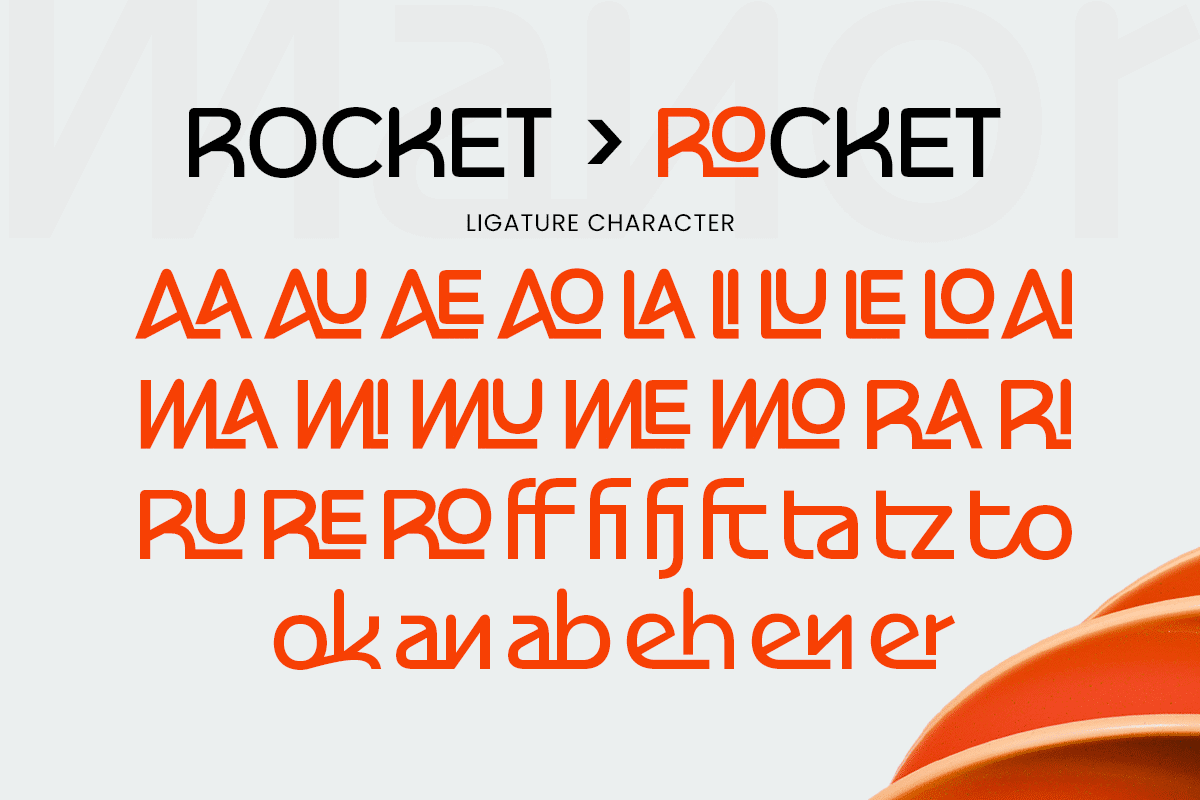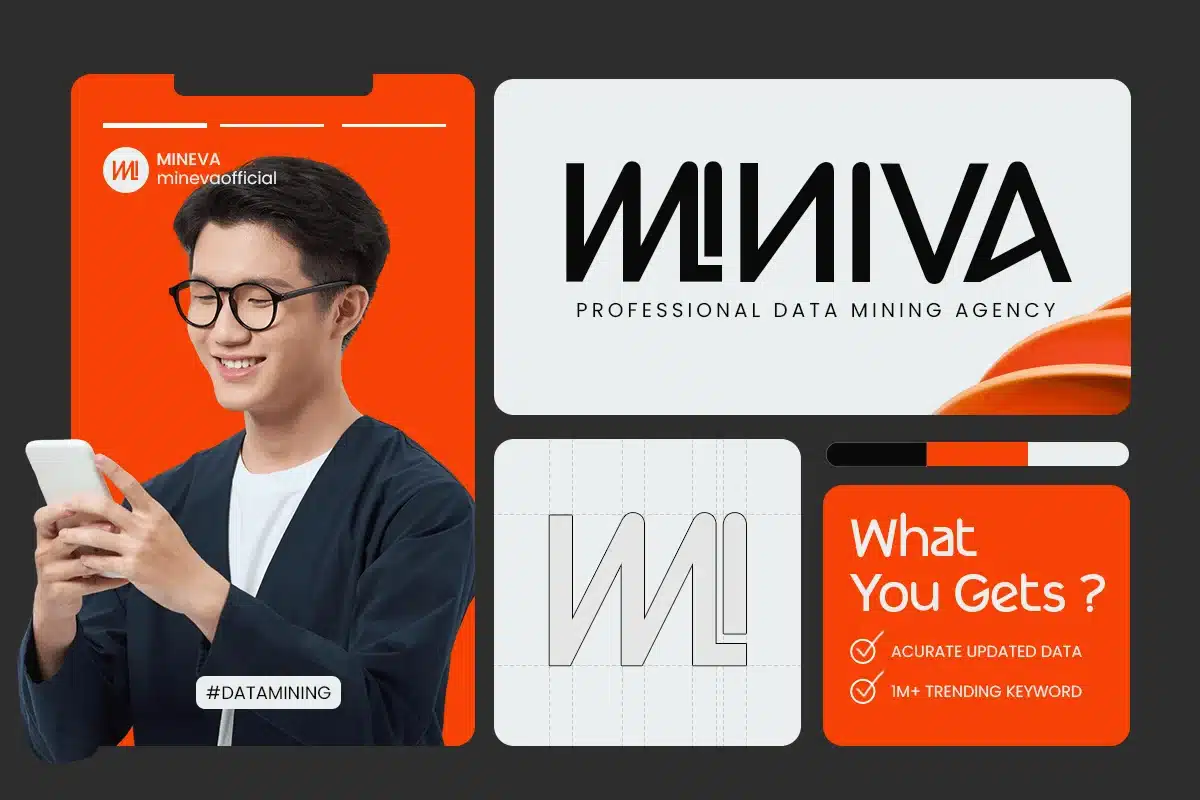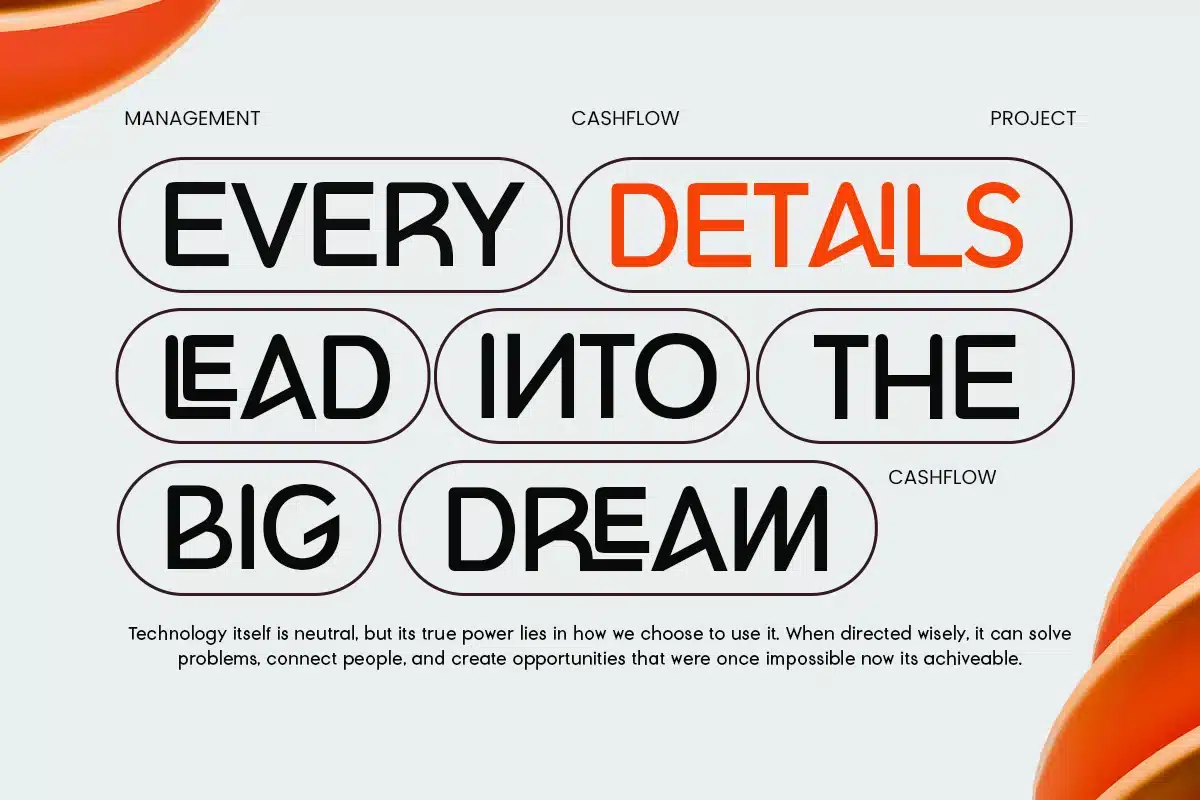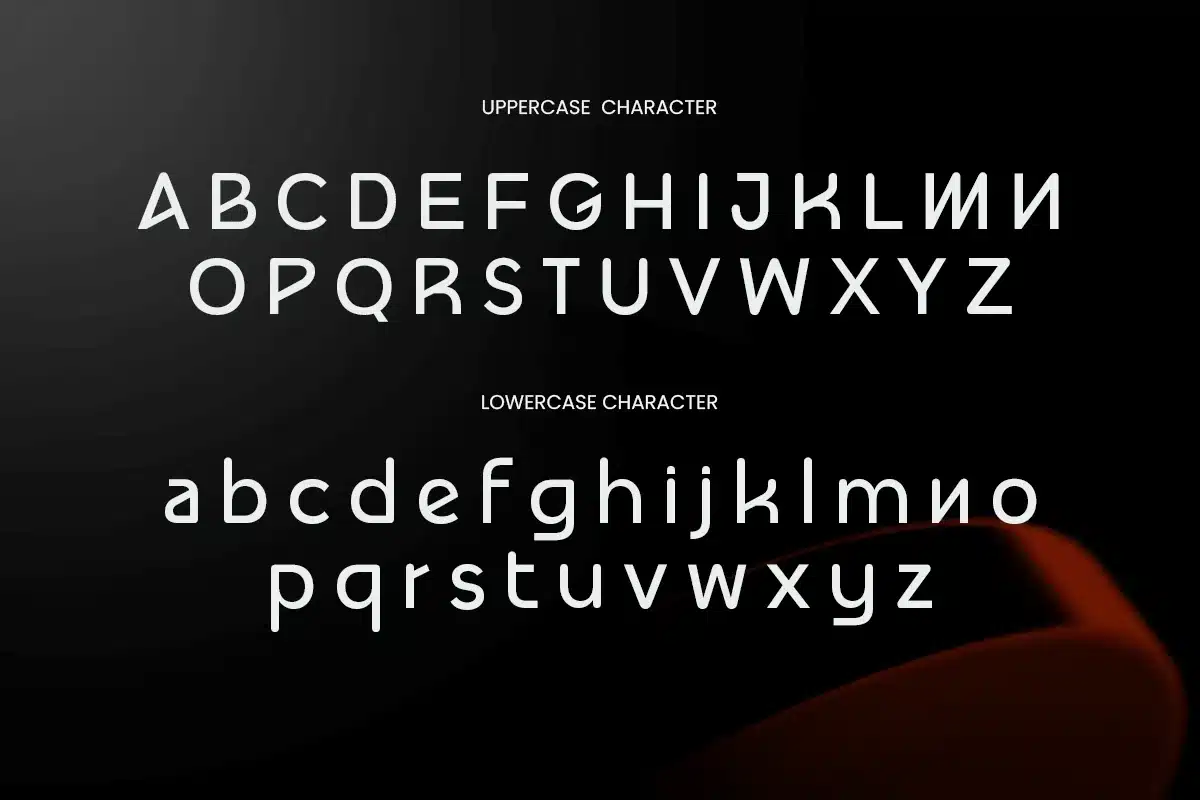
Manor – Ligature Branding Techno Logo Font
Manor is a sleek and futuristic logo font featuring stylish ligatures and modern techno-inspired aesthetics. Built for brands that value innovation and bold visual identity, Manor blends clean geometry with dynamic letter connections, creating a distinctive look perfect for technology companies, digital startups, gaming brands, and modern product design.
With its refined structure and innovative ligature combinations, Manor offers a unique typographic style that elevates logos, app interfaces, packaging, and promotional visuals. This font balances futuristic energy with high readability, making it versatile for both large headlines and compact branding elements.
Manor – Ligature Branding Techno Logo Font Features:
- Futuristic display style with custom ligatures
- Ideal for logos, tech branding, gaming, and digital products
- Includes uppercase, lowercase, numerals, and punctuation
- Optimized kerning and OpenType features for creative flexibility
- Perfect blend of modernity, precision, and visual impact
Build a cutting-edge brand identity with Manor – the ligature techno logo font crafted for innovation-driven design.